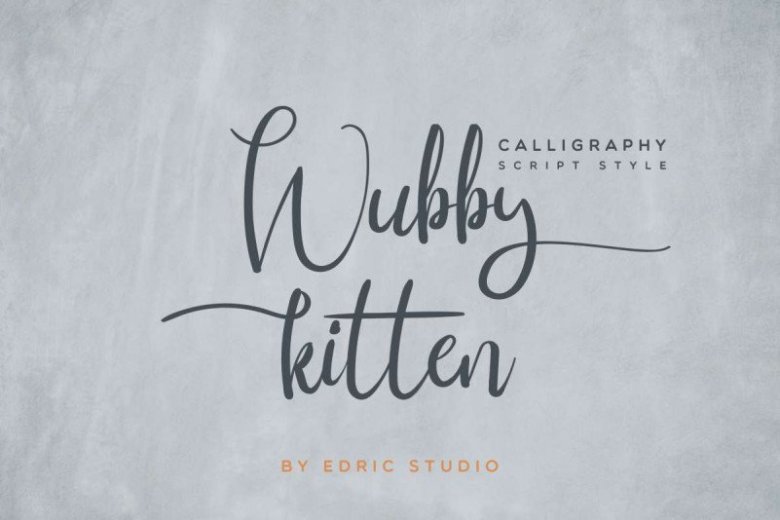
Wubby Kitten Calligraphy Font
Wubby Kitten Calligraphy Font is an exclusive calligraphy script typeface with brush style. This font has a stunning characters set, perfectly managed with well spaced and kerning. The theme style of this font will elegant,  vintage, stylish, sophisticated and classic brush calligraphic natural lettering style.